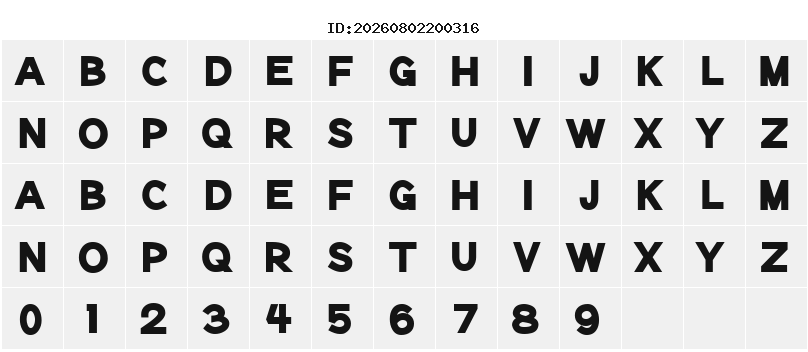
• Font Name: Notation Heavy JL
• Designer: Jeffrey N. Levine
• Manufacturer: Jeff's Fonts & Dingbats
• Description: "Notation Heavy JL"
About Notation Heavy JL.ttf
Notation Heavy JL.ttf is a modern, elegant sans-serif font designed for ultimate readability and visual harmony. Perfect for branding, headlines, web design, and print materials.